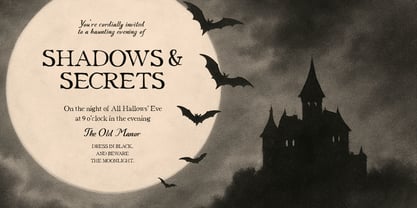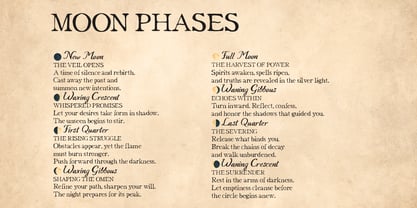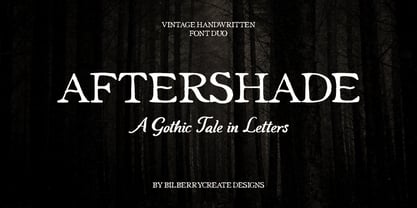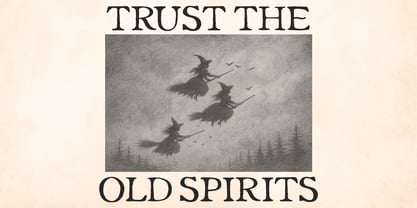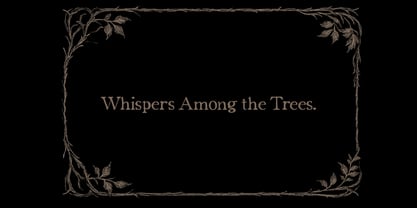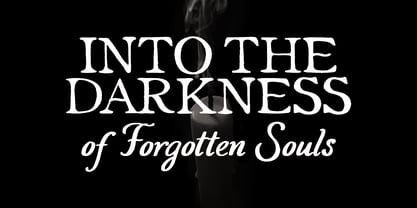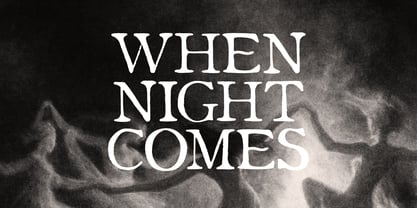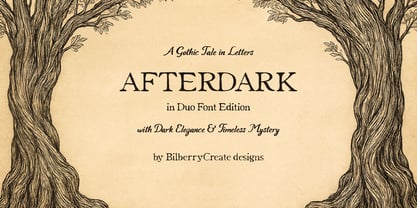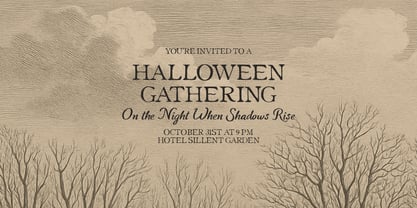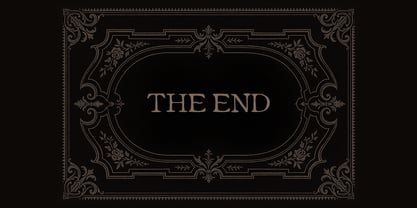
Aftershade
by Bilberry Create
The Aftershade Font Family was designed by Daria Cherniackova and published by Bilberry Create. Aftershade contains 2 styles and family package options. More about this family
Afterdark - A Gothic Tale in Letters. Step into the shadows with Afterdark, a hauntingly elegant vintage handwritten font duo inspired by Gothic tales, eerie manuscripts, and the timeless beauty of dark romance. This typeface combines two complementary styles - a bold, textured serif with strong Gothic character and a flowing handwritten script - perfect for creating designs that feel mysterious, dramatic, and atmospheric. Perfect for: Book covers & titles (especially Gothic, horror & fantasy genres) Posters & flyers for Halloween or mystical events Branding with a vintage or occult-inspired aesthetic Invitations, cards, and packaging that need a touch of dark elegance Features: Uppercase & lowercase letters Numbers & punctuation Multilingual support Two font styles (serif + handwritten script) Works beautifully in both print & digital projects Bring your words to life with Afterdark, where every letter whispers a Gothic tale.
Designers: Daria Cherniackova
Foundry: Bilberry Create